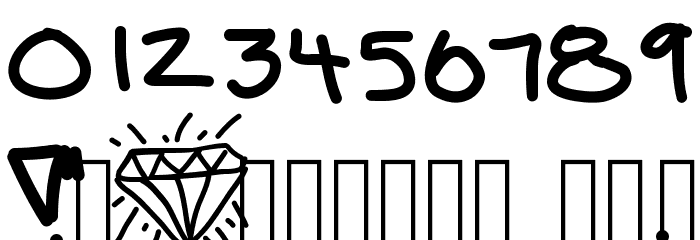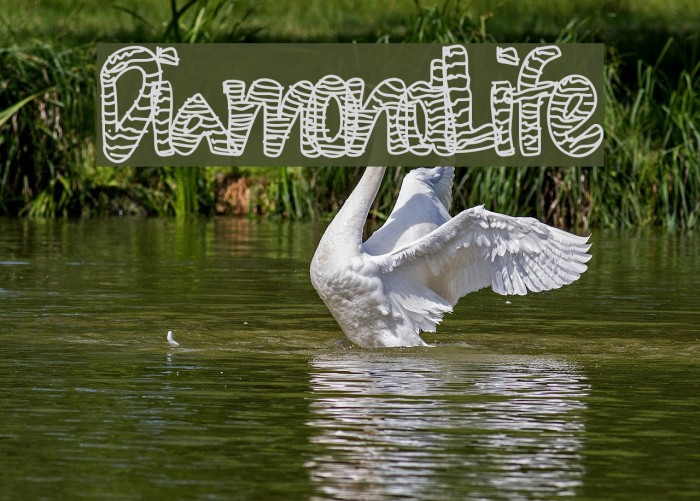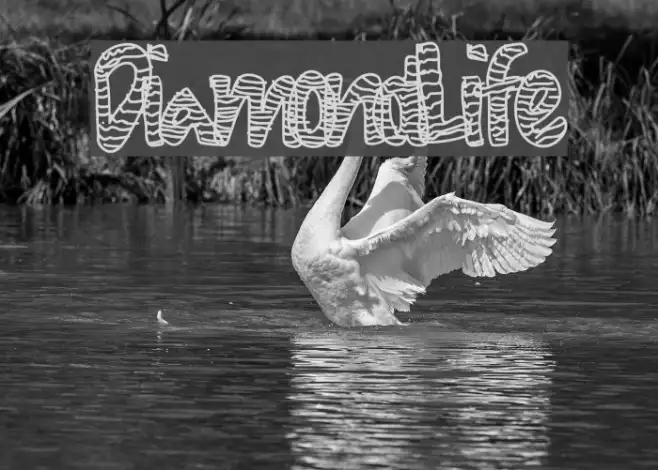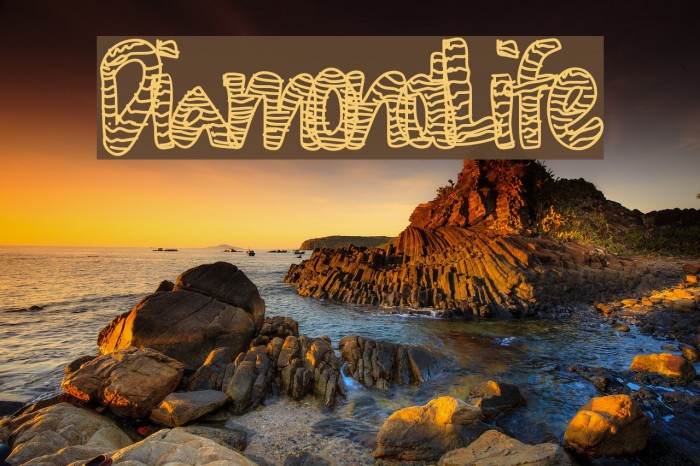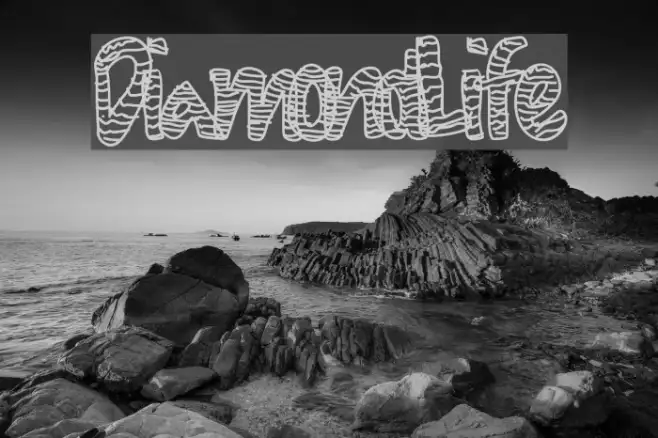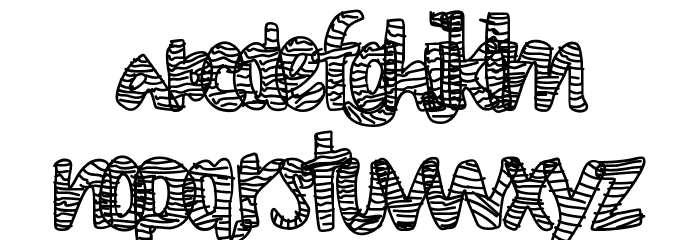
DiamondLife Font
This font features a playful and artistic design with a hand-drawn aesthetic. The uppercase and lowercase letters are filled with intricate line patterns, giving them a textured appearance. The numbers are bold and slightly irregular, adding to the whimsical feel. Special characters are creatively integrated, with some incorporating unique graphic elements, such as the diamond symbol. The overall style is dynamic and eye-catching, making it suitable for projects that require a fun and informal touch.
A playful, hand-drawn font with intricate line patterns and a whimsical style.
• Proposed Projects: Ideal for children's book covers, playful branding, creative posters, and artistic invitations.
• Category: Decorative/Display
• Contrast: Medium
• Overall Style: Decorative
• Use Case: Headlines, Logos